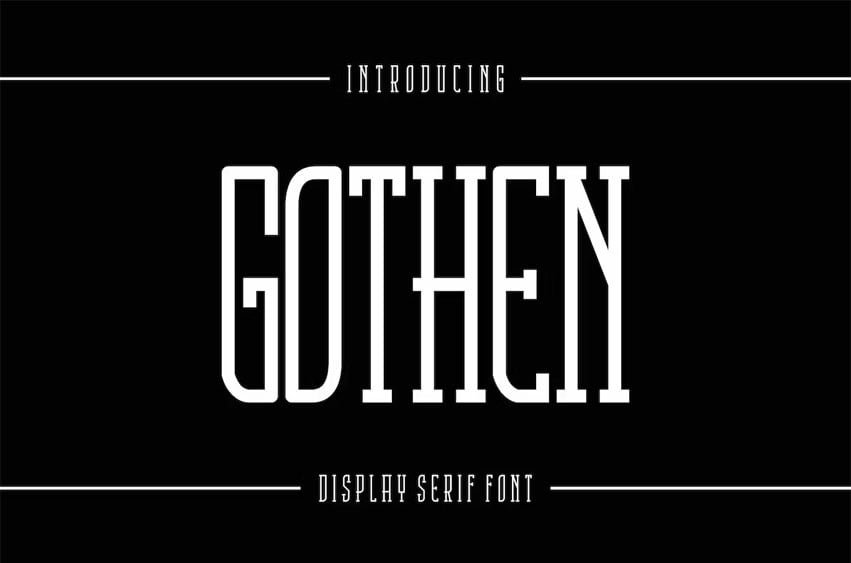
Gothen Font Perfectly suited on print/screen. it’s perfect for Branding, name cards, posters, logos, magazines, covers, banners, t-shirts and headers, or even large-scale artwork.